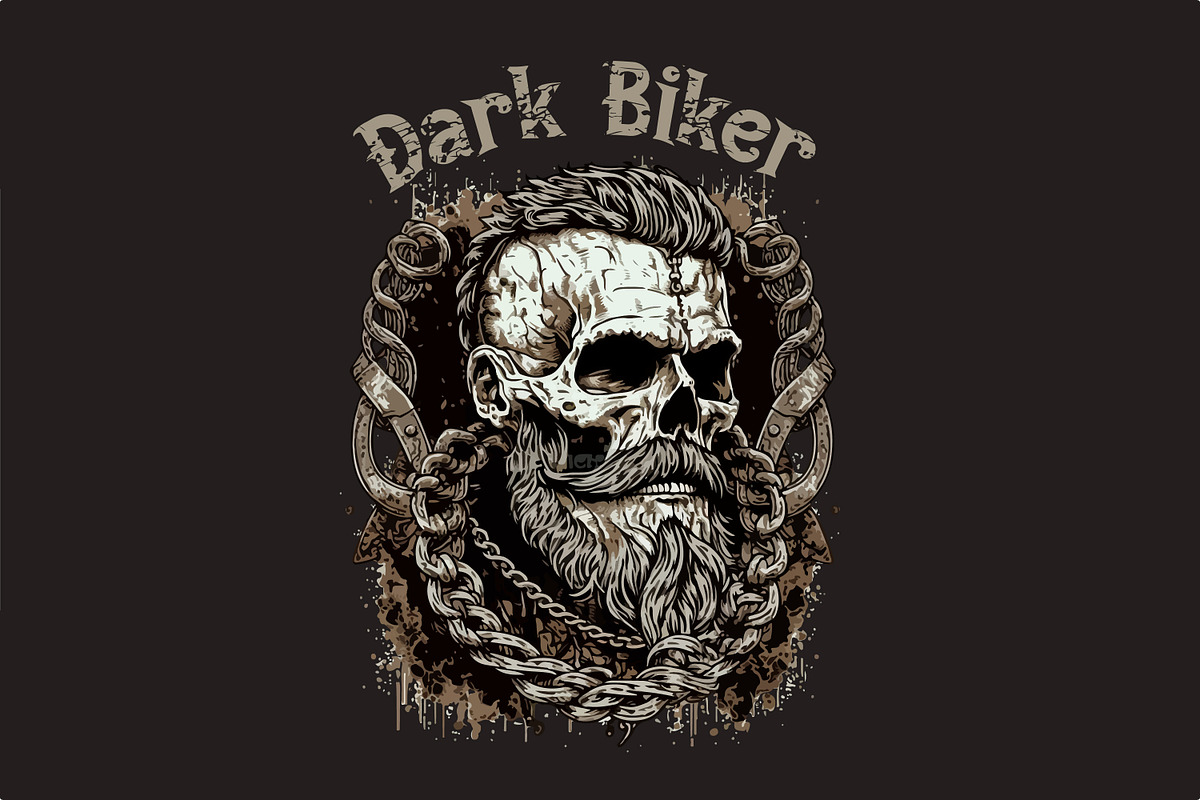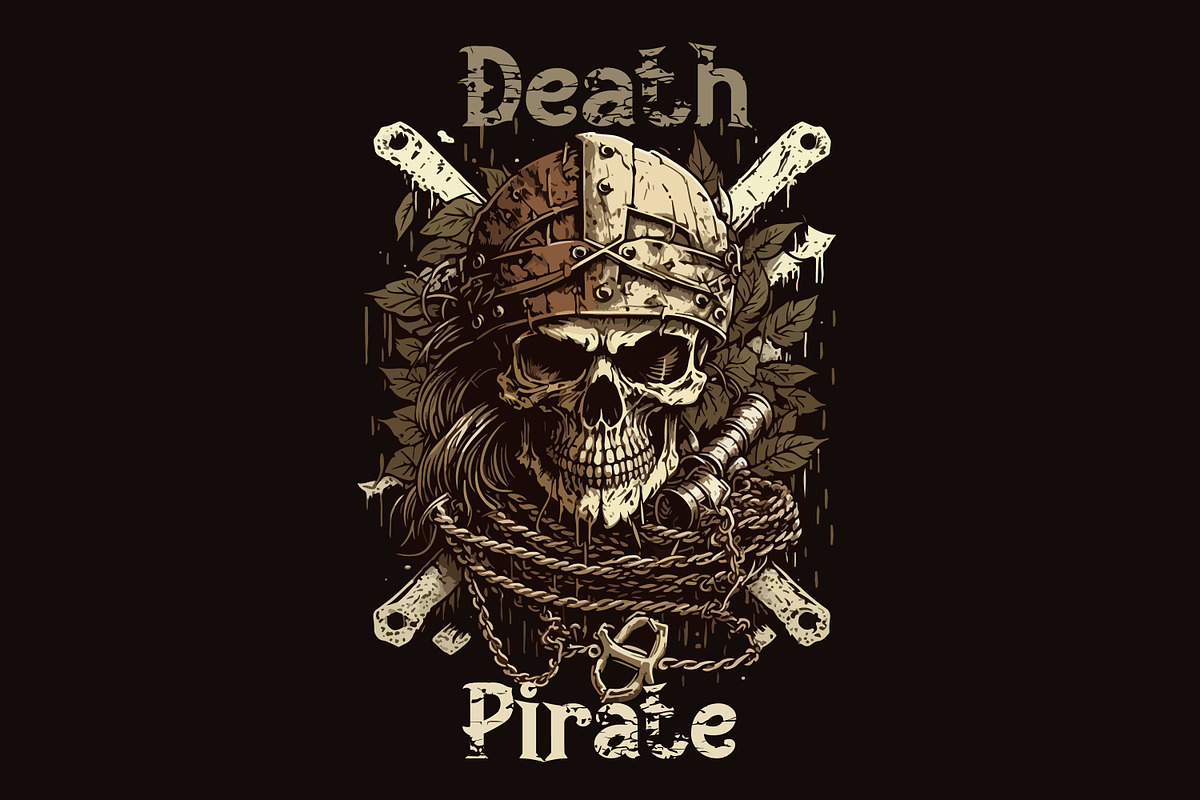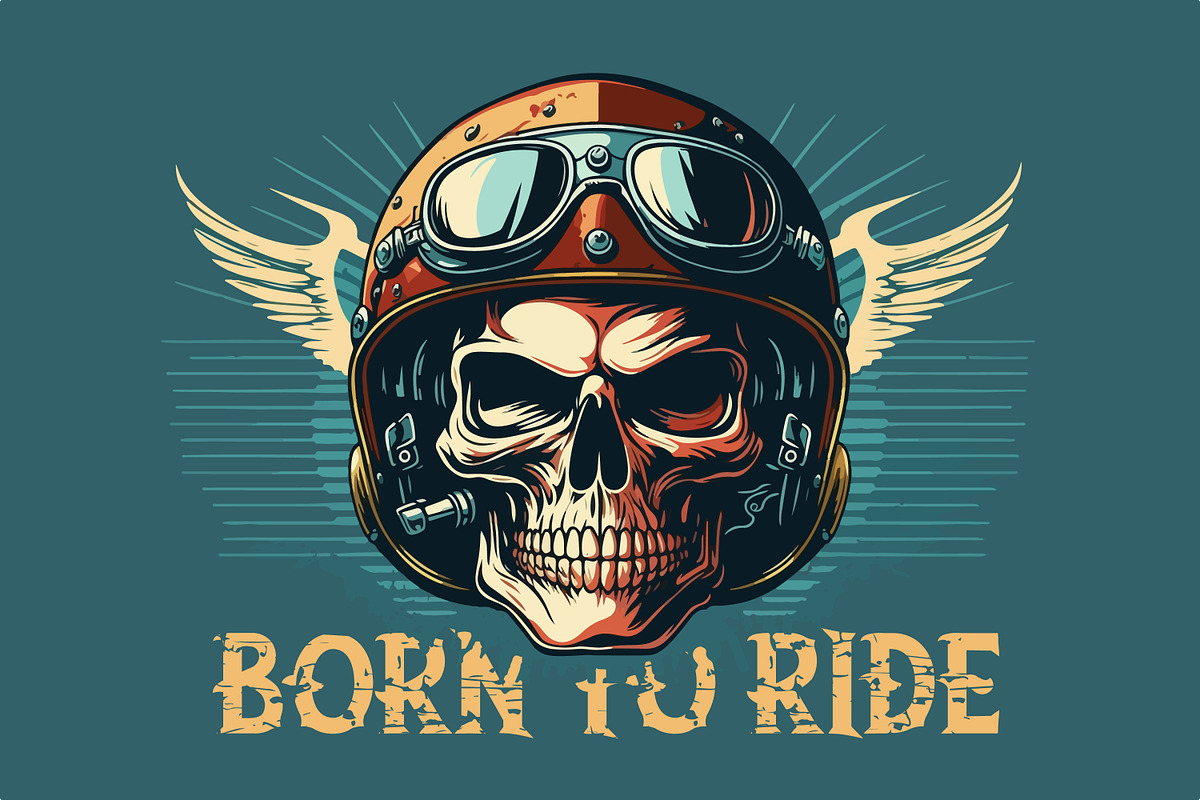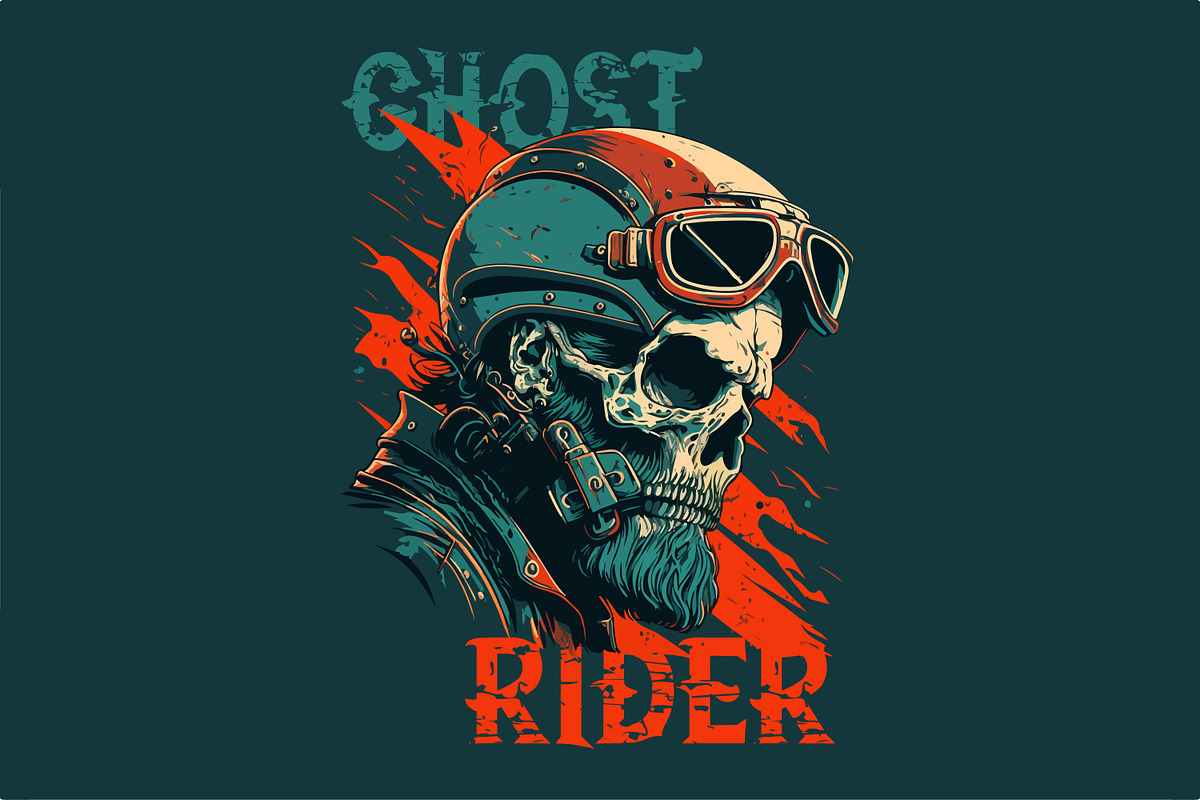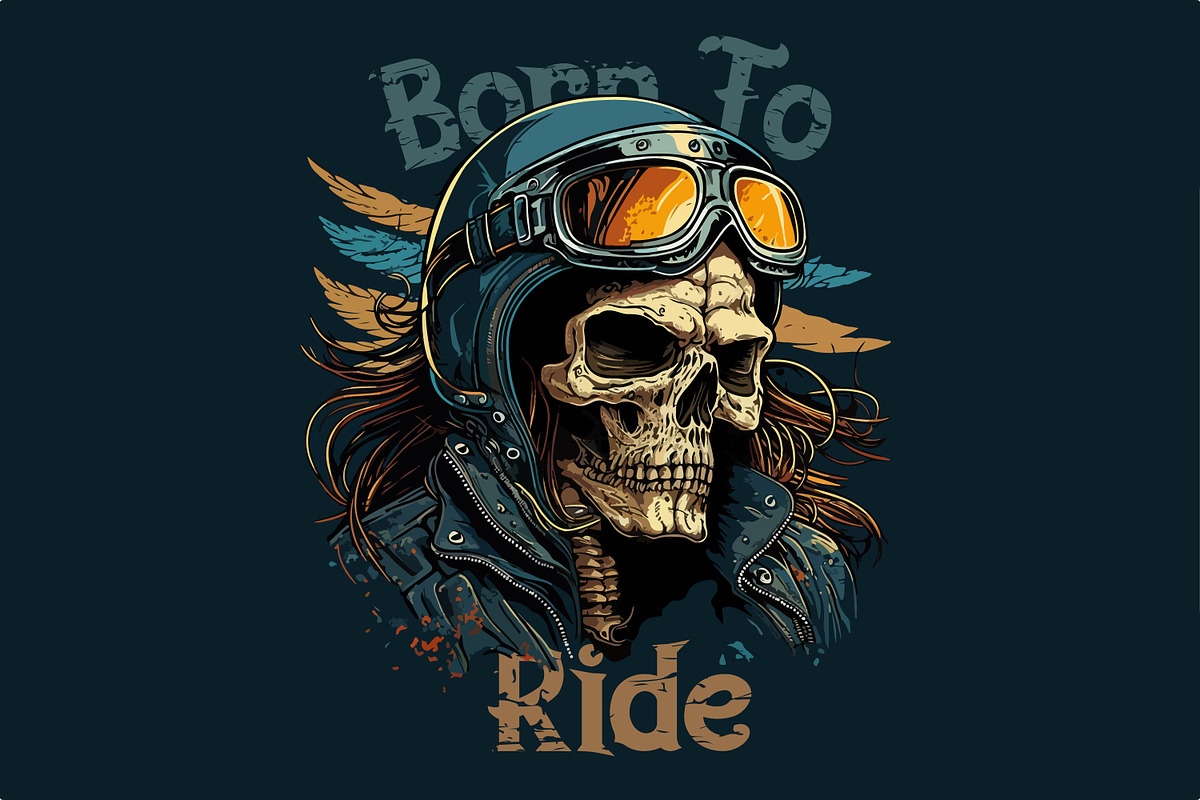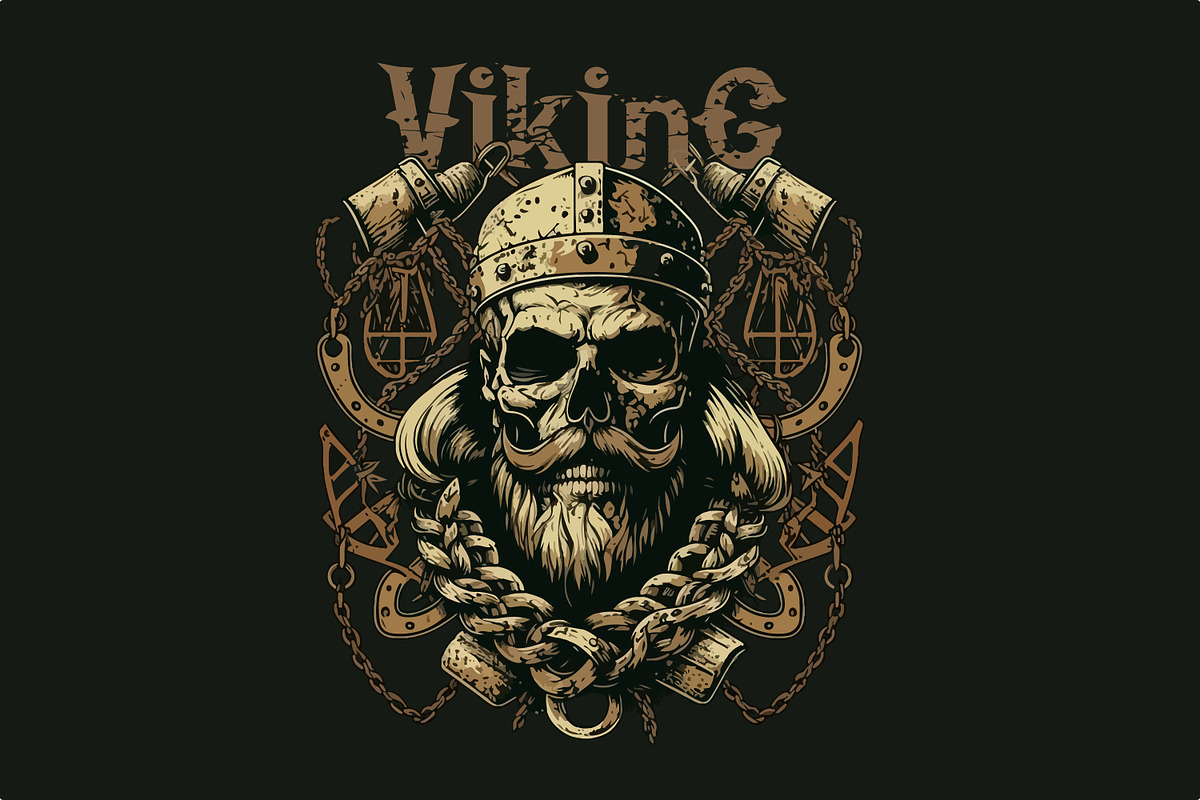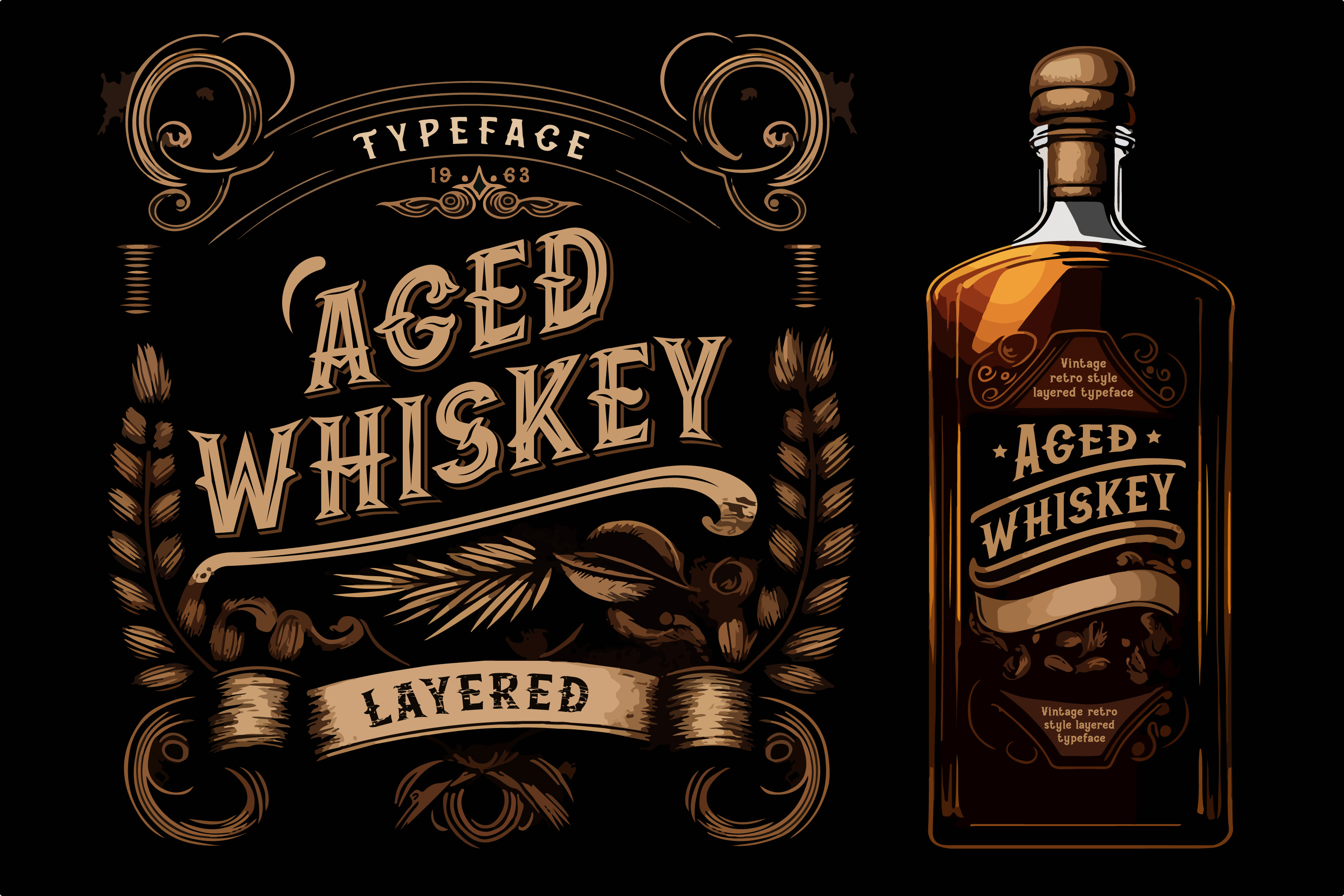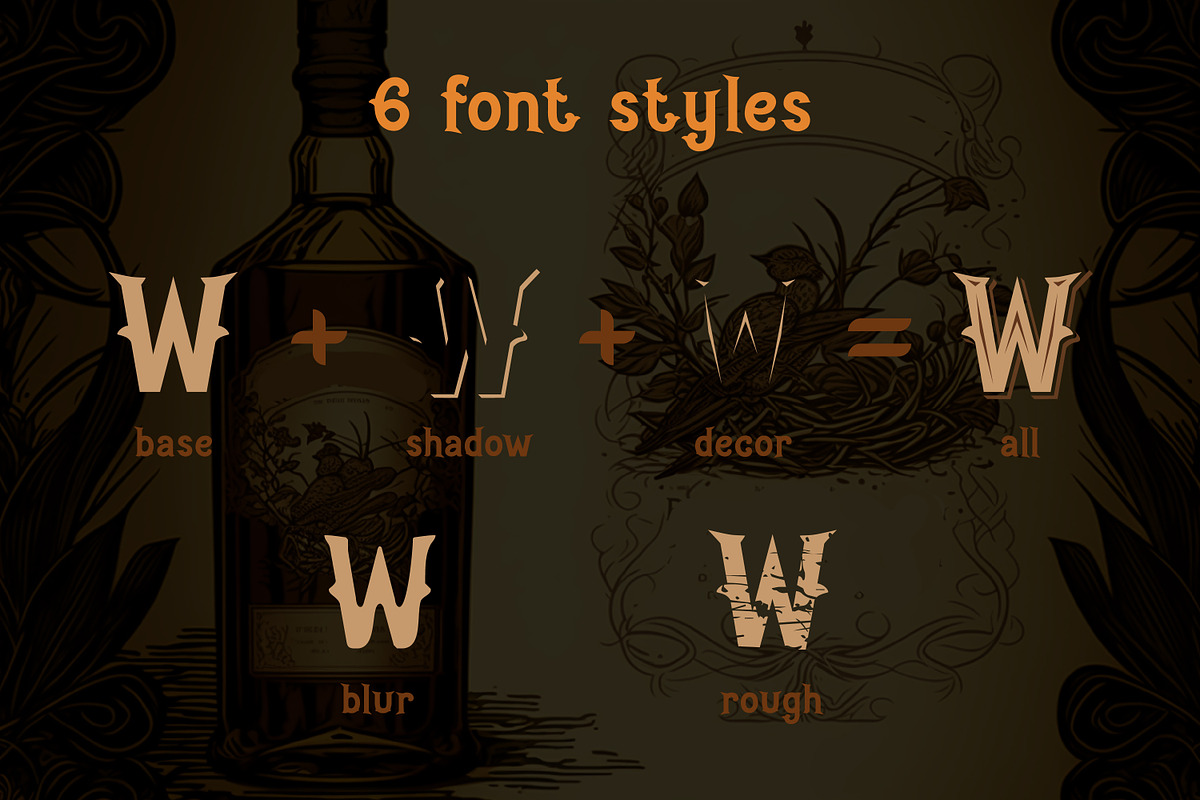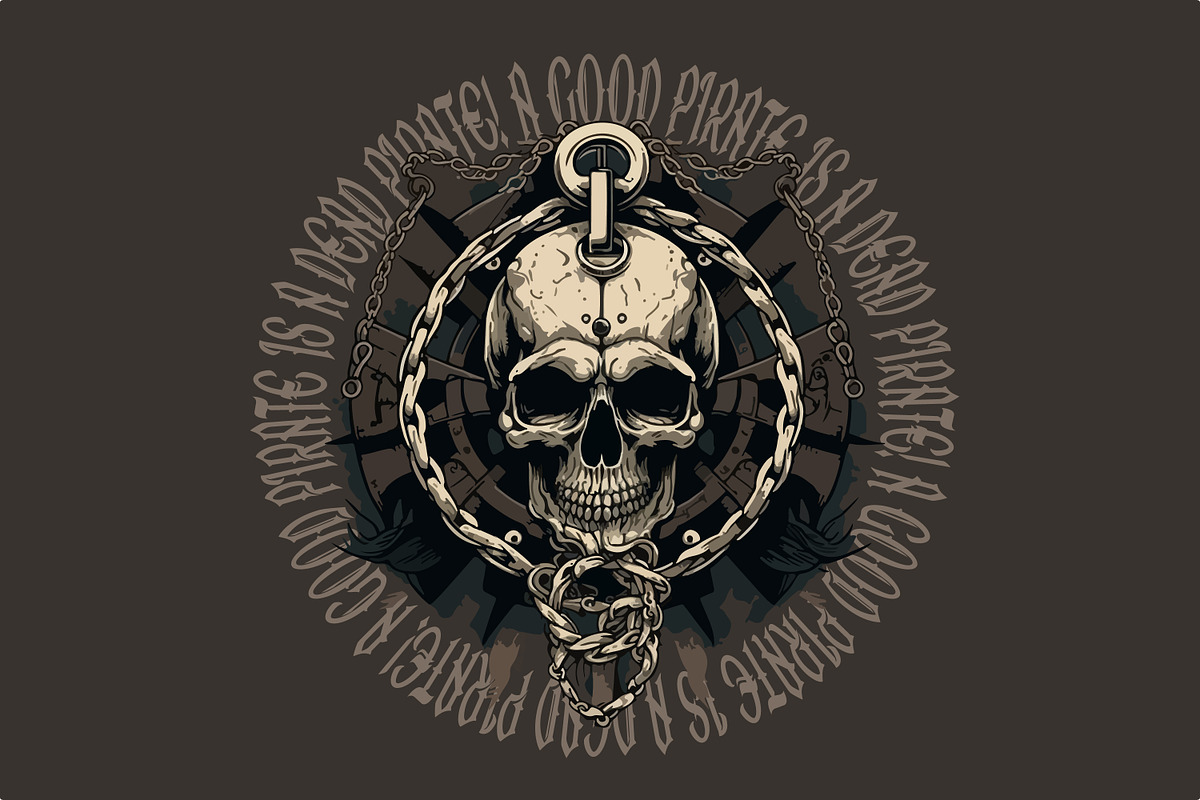
Aged whiskey typeface
"Aged Whiskey". This is a layered font containing 6 letter styles. Base, shadow, decor, roughness, blur, all in one. The aged whiskey font is made in an old vintage style, it is well suited for labels, headings, logos and illustrations. Also, as a bonus, a set of various illustrations for T-shirts using this font is included, in eps and png format.